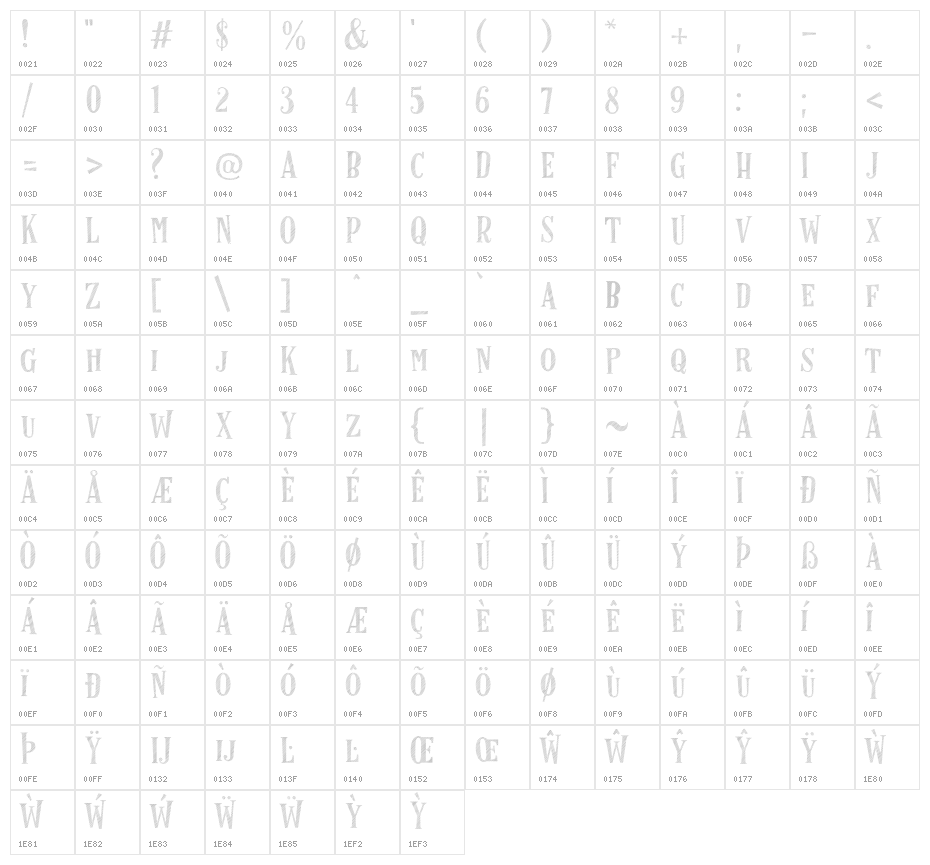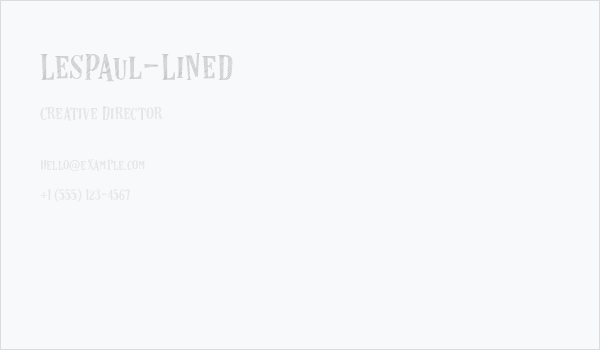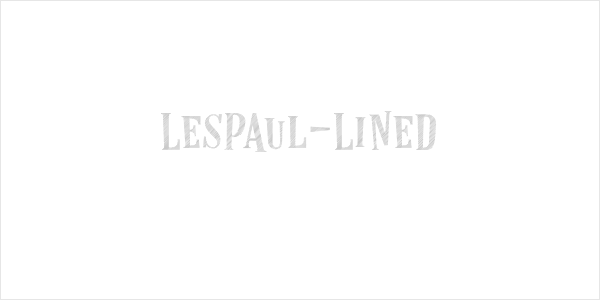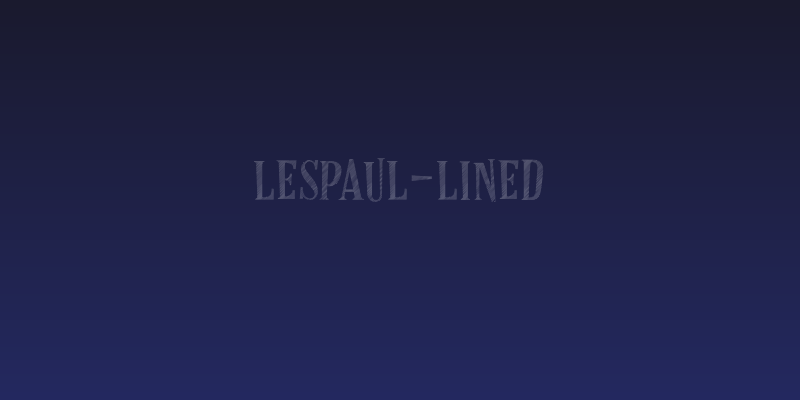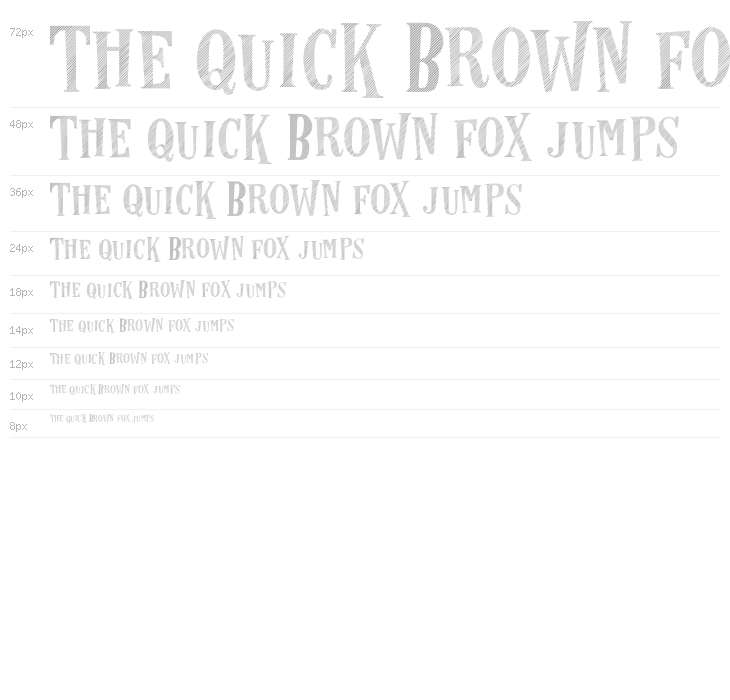
LesPaul-Lined Font
LesPaul-Lined Description
This font features a unique lined texture that adds depth and character to its bold, serif design. The uppercase letters are prominent and commanding, with a slight slant that gives them a dynamic appearance. The numbers and special characters maintain the same lined texture, ensuring consistency across all glyphs. The overall style is both classic and modern, making it suitable for a variety of design projects. The lined detail adds a decorative element that enhances its visual appeal without compromising readability.
Proposed ProjectsIdeal for branding, poster design, and headlines where a bold statement is needed.